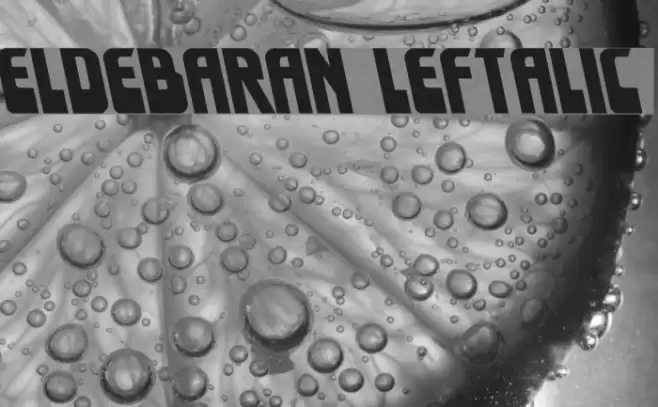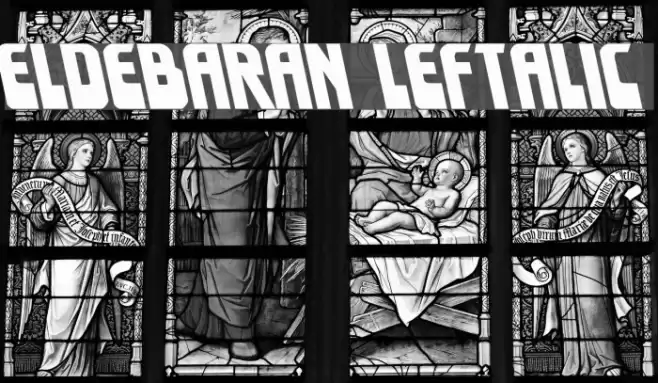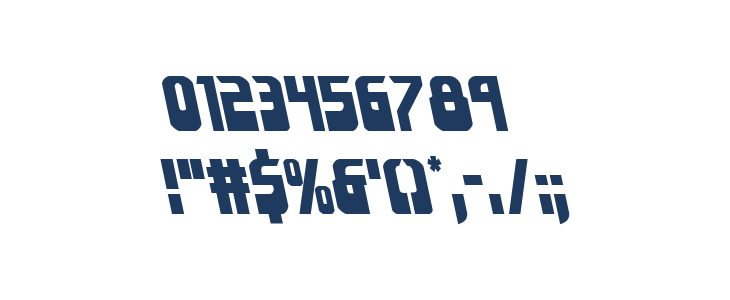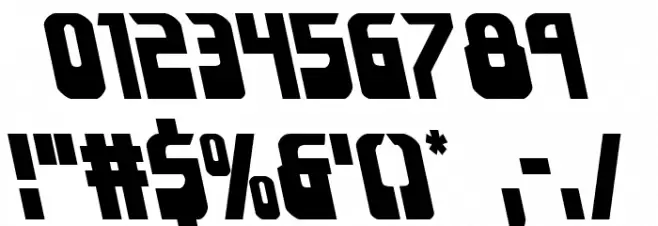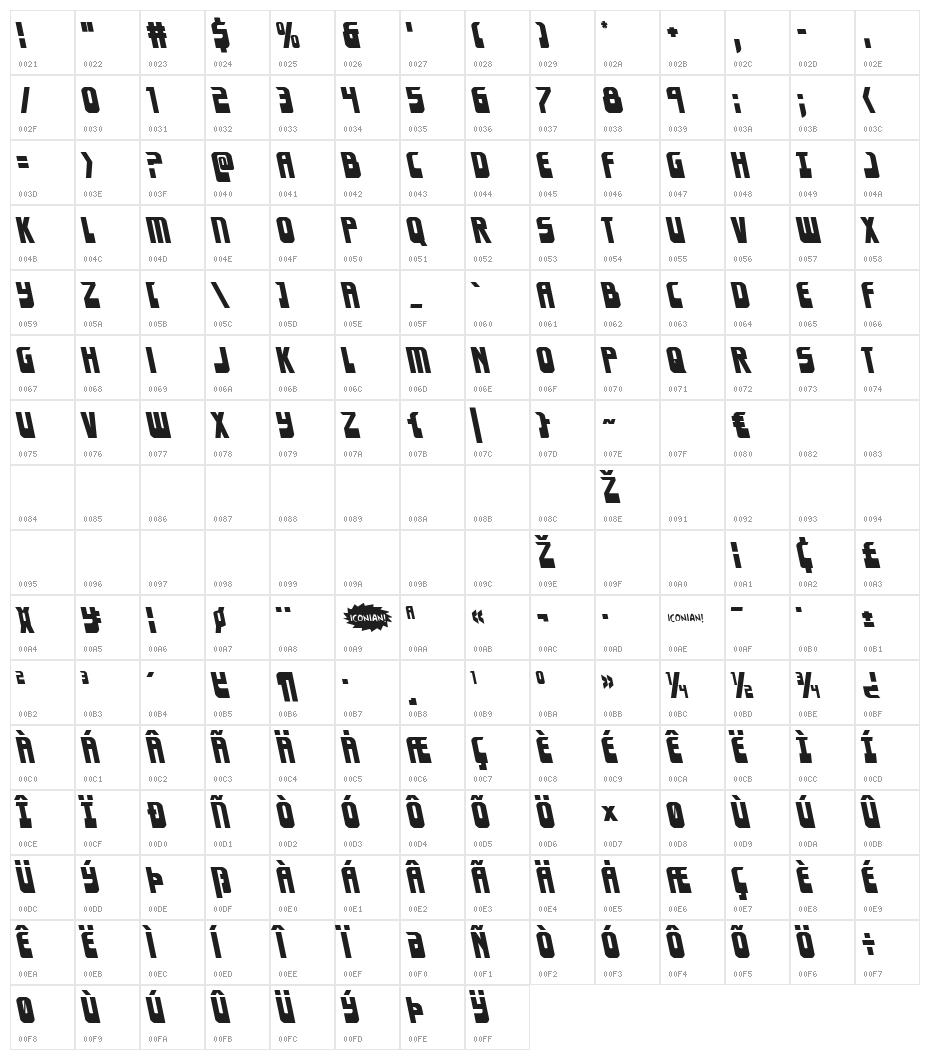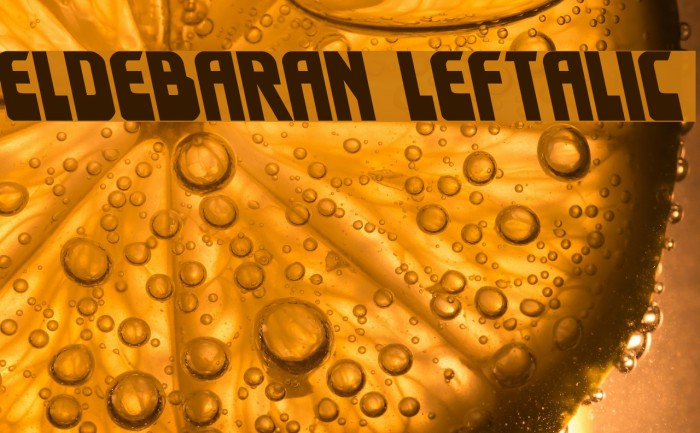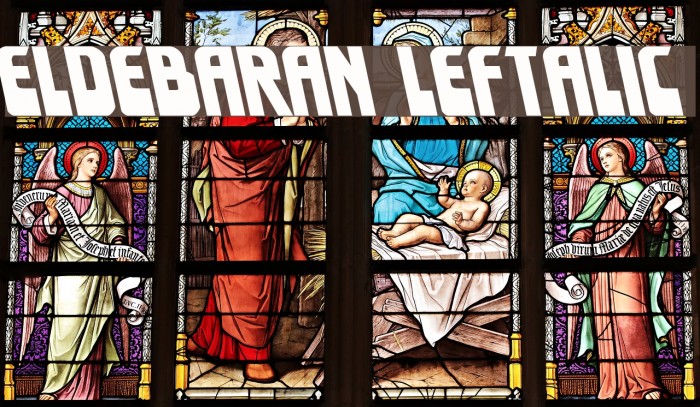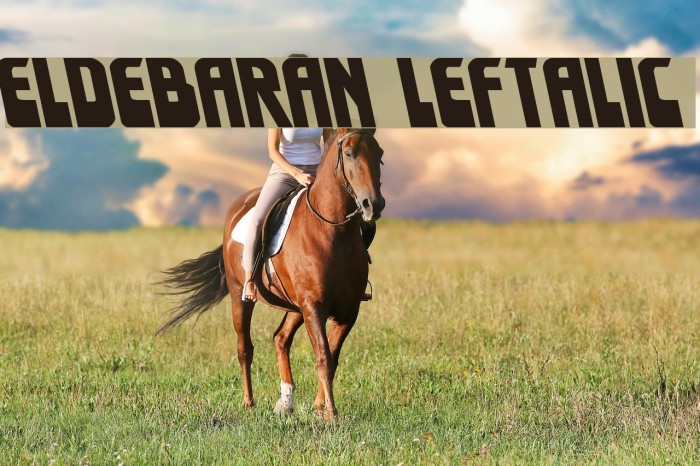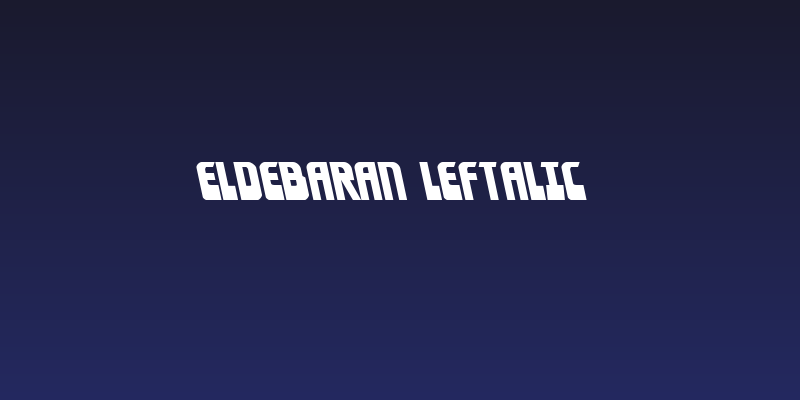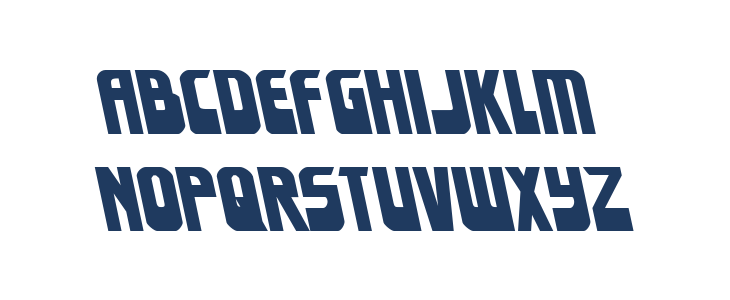
Eldebaran Leftalic Font
Eldebaran Leftalic Description
This font features a bold, angular design with a futuristic and dynamic appearance. The characters are heavily slanted to the left, giving a sense of motion and speed. The strokes are thick and consistent, creating a strong visual impact. The geometric shapes of the letters are distinct, with sharp edges and a blocky structure. This style is reminiscent of digital or sci-fi themes, making it suitable for modern and tech-oriented designs. The numbers and special characters maintain the same bold and angular aesthetic, ensuring uniformity across all elements.
A bold, angular font with a futuristic, left-slanted design from Uncategorized fonts.
- Proposed Projects: Ideal for tech branding, sci-fi posters, video game titles, and futuristic event flyers.
- Overall Style: Futuristic